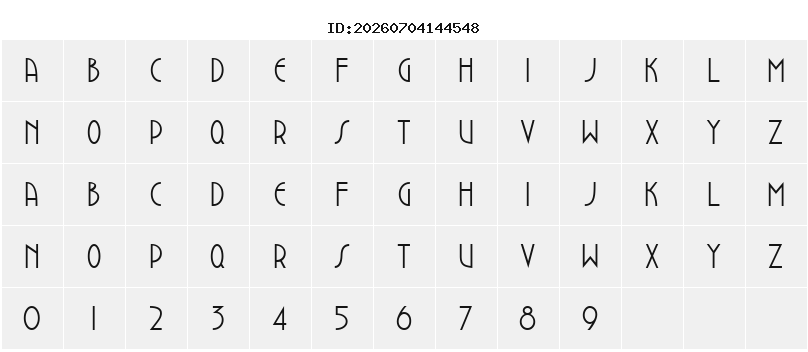
DustbowlClementine Preview
• Font Name: DustbowlClementine
• Full Font Name: DustbowlClementine
About DustbowlClementine.ttf
DustbowlClementine.ttf is a modern, elegant sans-serif font designed for ultimate readability and visual harmony. Perfect for branding, headlines, web design, and print materials.